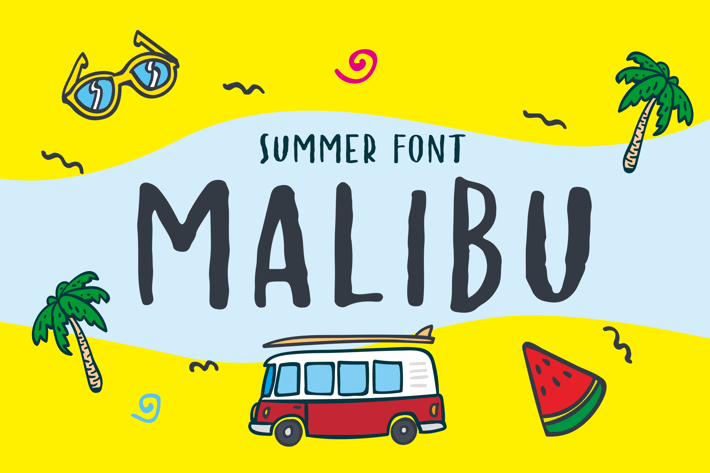
MALIBU - Carefree Handwriting Font
Inspired from easy and carefree summer vibes. The beach life !
The careless brush style suits perfectly for any summer and casual branding projects.
also it's match your instagram travel story too ^_^
The careless brush style suits perfectly for any summer and casual branding projects.
also it's match your instagram travel story too ^_^